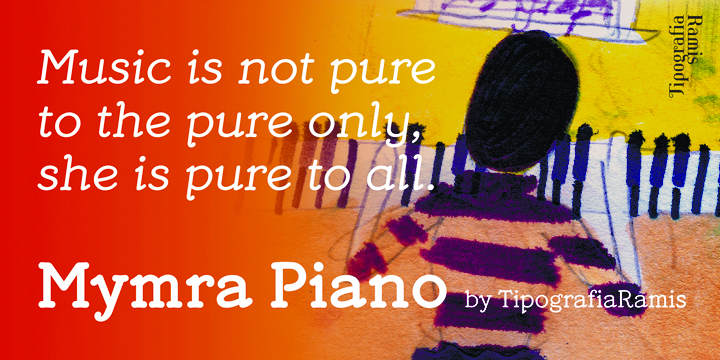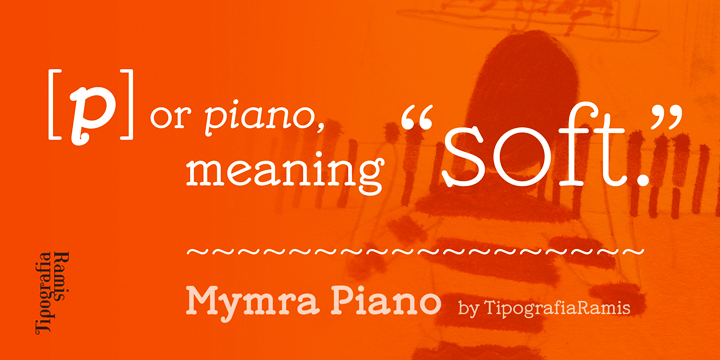
Mymra Piano
Mymra Piano Font
Mymra Piano Font Family
Mymra Piano is a monoline serif Roman face, inspired by Charles Robinson lettering from the Art Nouveau period. The enchantment of some of the characters’ flamboyant shapes has created an idea to rework the face and bring it to life as a contemporary typeface. Skeleton of the original characters have been used as a foundation for shaping glyphs. Bowed terminals and serifs helped to keep playful impressions of the entire typeface. The result of this work is a new typeface with Clarendonian, or Egyptian characteristics. Mymra Piano is ideally suited for display use in publications or advertising. Mymra Piano consists of six styles in Light, Regular and Bold weights ñ upright and true italics respectably. The typeface is released as OpenType single master with Western CP1252/ANSI character set.